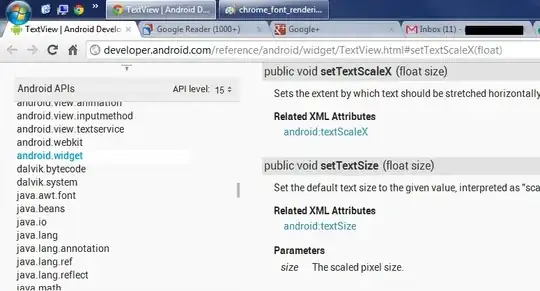
I'm currently running Chrome 20.0.1132.57 on two PCs.
PC #1: Windows 7 64-bit PC #2: Windows Server 2008 64-bit SP2
On the 2008 machine Chrome is rendering fonts inconsistently, but as far as I know, only on developer.android.com/reference. I have not seen this problem anywhere else.
Here are some images of the problem:
Poor rendering on 2008:
Good rendering on 2008, same browser window, different site:
Good rendering on Windows 7, same browser version:
The browsers on each OS are practically identical in terms of settings. I've played with my Windows ClearType settings, which didn't help. Similar threads suggest disabling GPU acceleration in about:flags, but I can't find anything similar that's not already disabled.
The poor rendering you see in Windows 2008 is because both ClearType and standard font smoothing are turned off. The Roboto regular font (used in Android website) looks particularly jagged because it’s not hinted to support Windows’ font rendering, as Android OS doesn’t need it.
You might want to enable ClearType in Windows 2008, or install an alternative font renderer.
• The taskbar and tooltip in the first two screenshots do show ClearType, though. – Vivelin Aug 14 '12 at 07:11
• @horsedrowner That’s because it’s not possible to turn off ClearType for certain parts of Windows Vista+. For example, ClearType is always enabled in IE, Windows Explorer and Aero. – fitojb Aug 14 '12 at 07:18